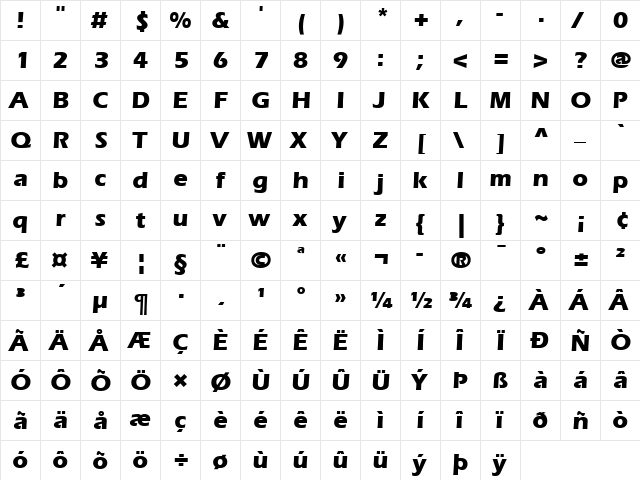
Eras LT Medium Bold
Design Context for Eras LT Medium Typeface
Eras LT Medium offers clean, dependable letterforms without strong stylistic allegiance, making it a practical choice for designers who need flexibility. Its bold stroke weight gives it real presence on the page.